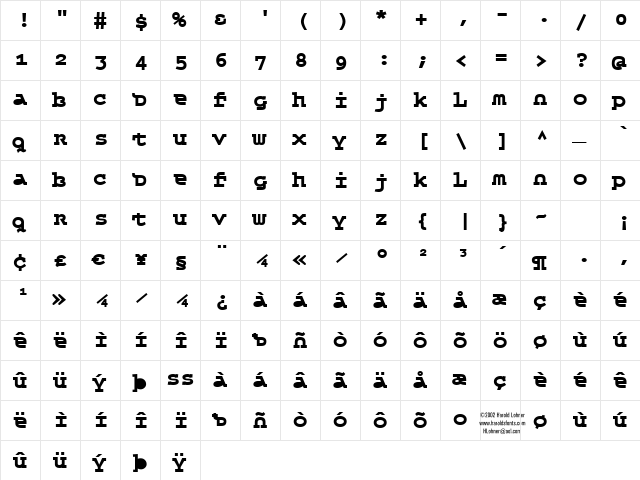
Queer TheoryBlack Regular Font Preview
Queer TheoryBlack Regular
Queer TheoryBlack Regular Font Details
Design Context for Queer TheoryBlack Typeface
Queer TheoryBlack is a composed and adaptable typeface that performs quietly and consistently across a wide range of design contexts.